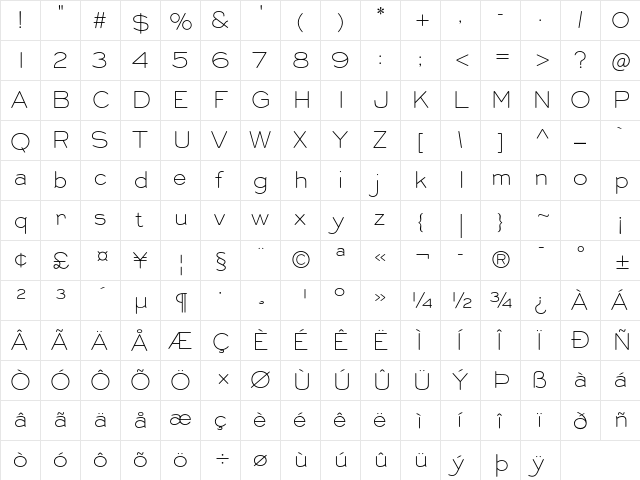
Burin Sans Std Regular
Design Context for Burin Sans Std Typeface
Burin Sans Std offers clean, dependable letterforms without strong stylistic allegiance, making it a practical choice for designers who need flexibility.